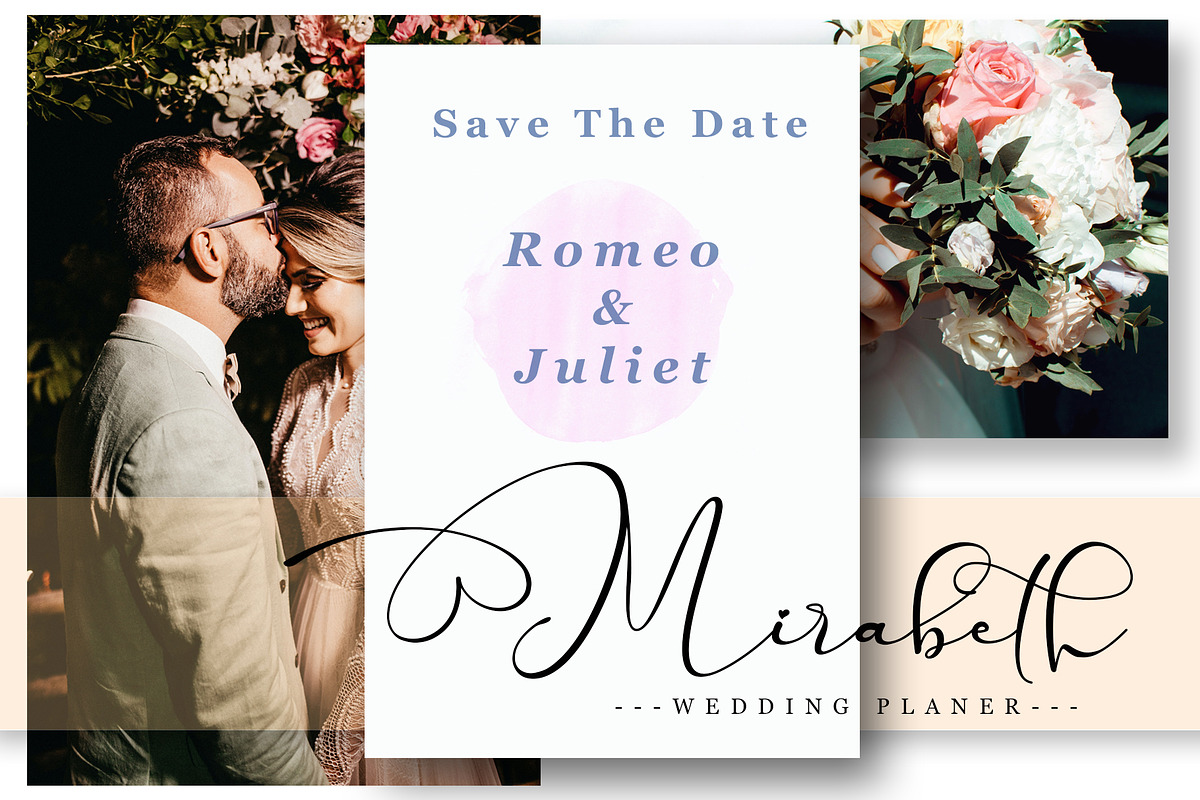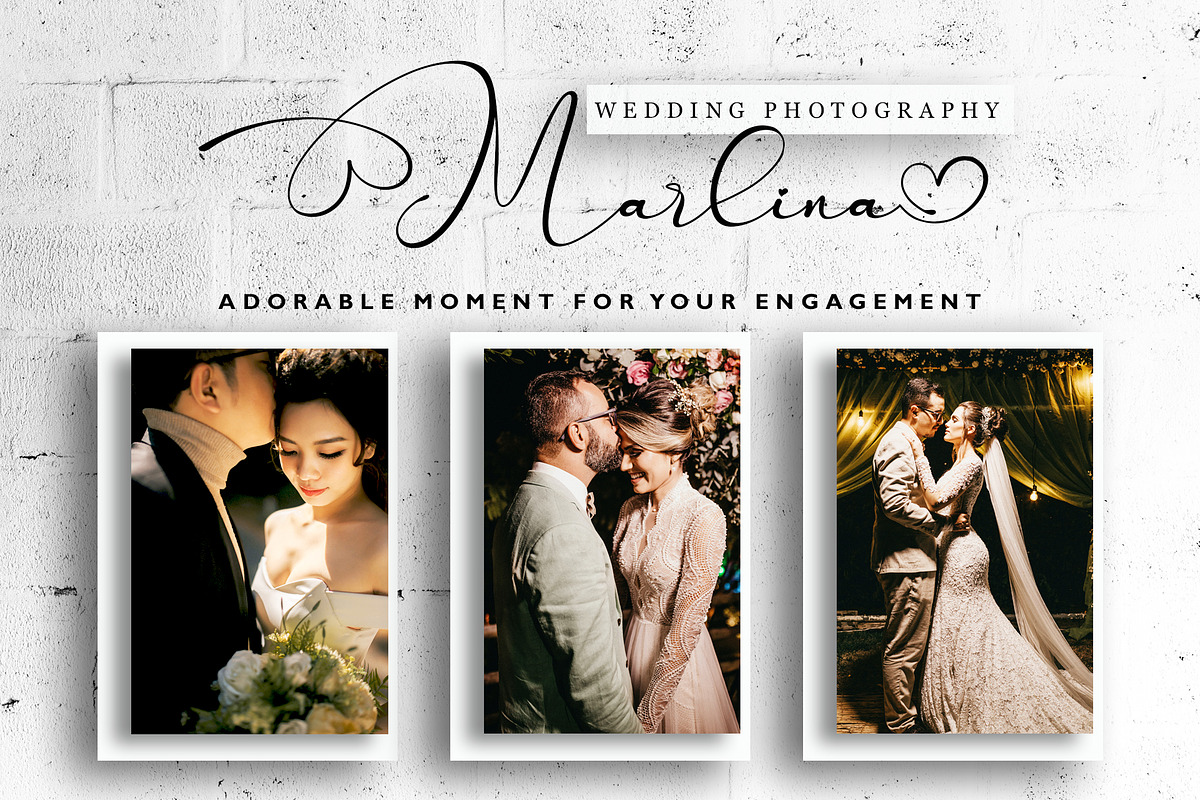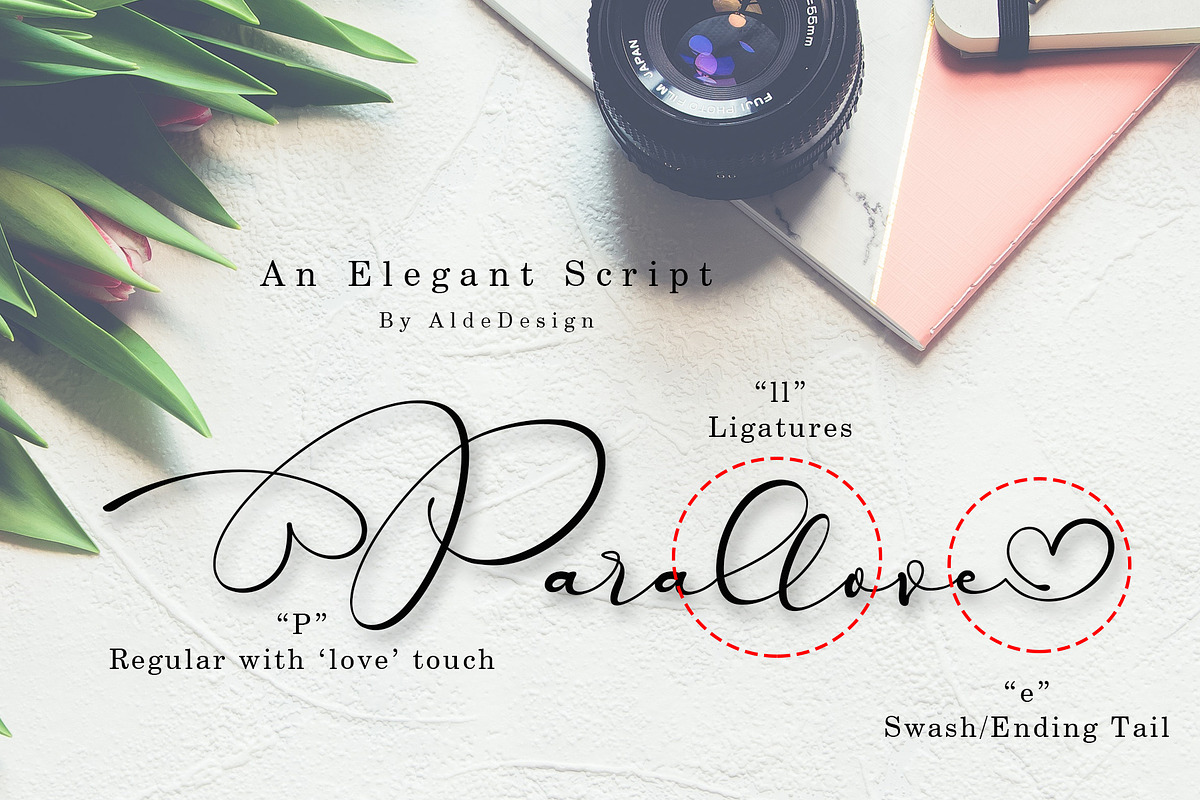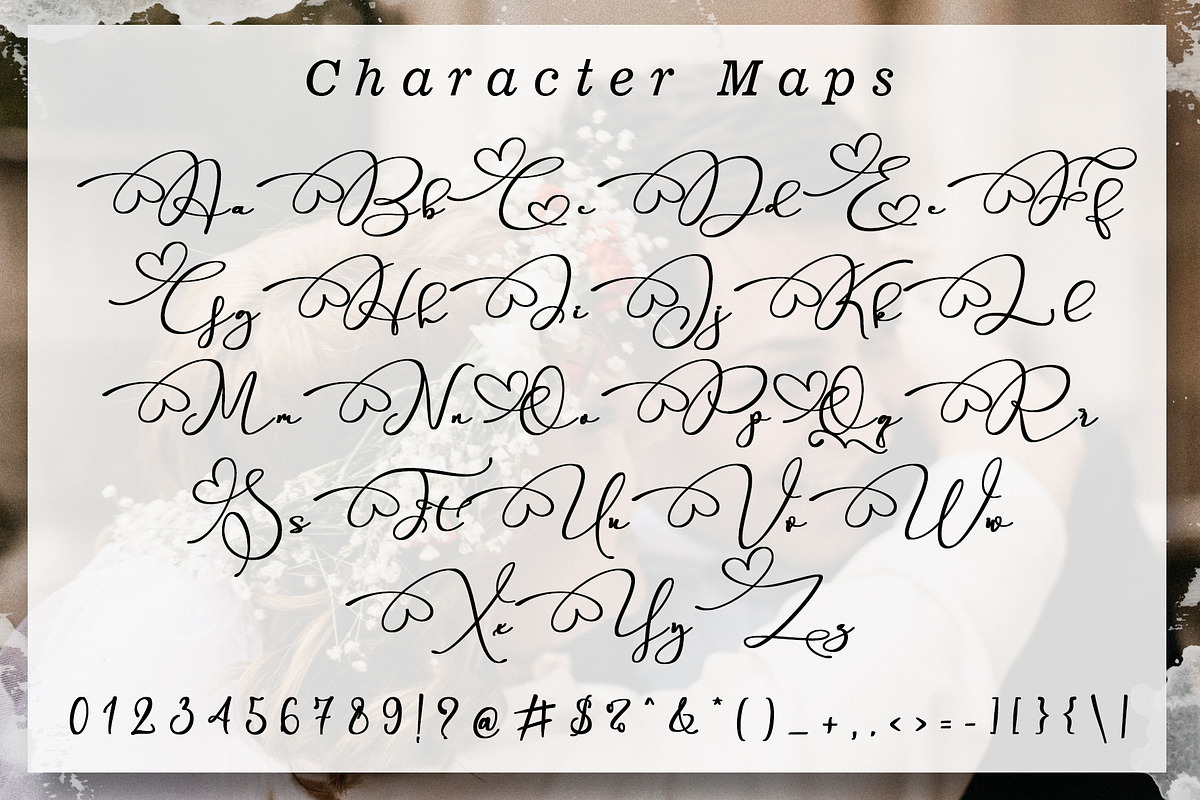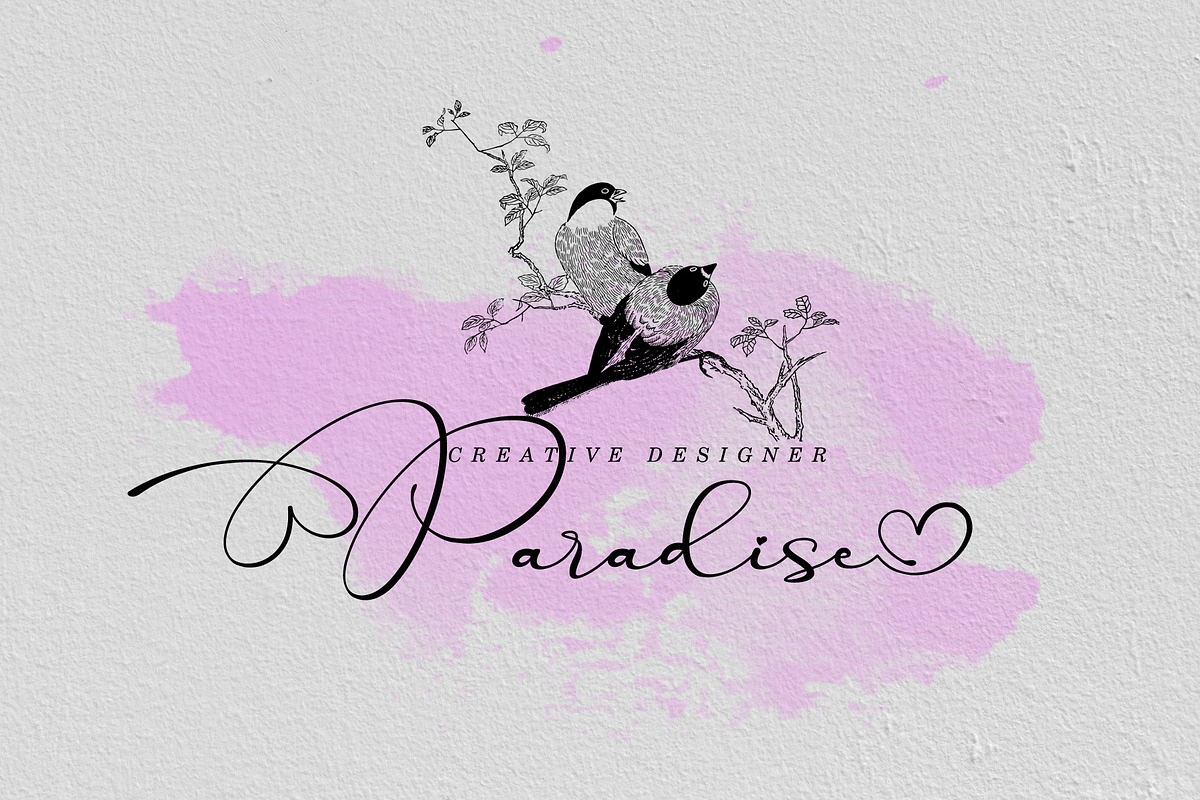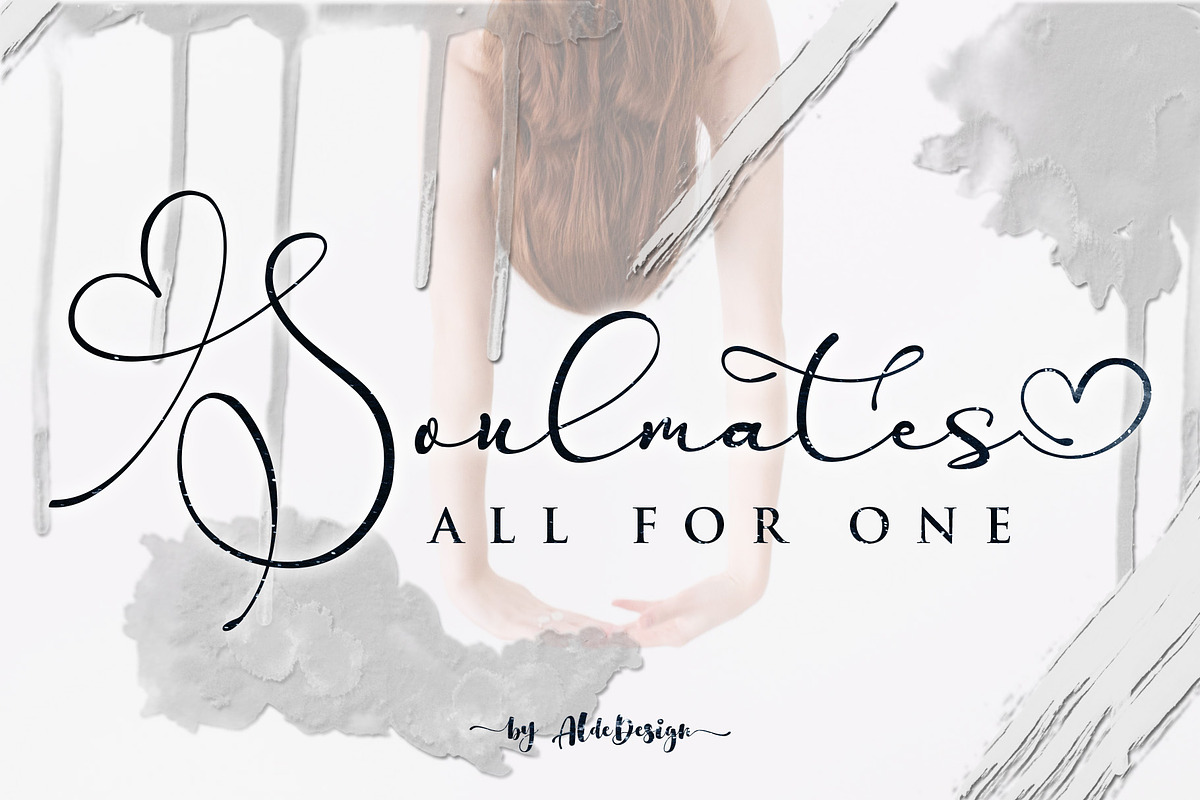
Parallove // Love Script Font
Parallove // Love Script Font is a stylish calligraphy font that features a varying baseline, smooth line, modern and with a depth love. For those of you who are need a touch of love and modernity for your designs or branding, it can be used for various purposes such as headings, wedding, invitation, signature, logos, branding, t-shirt, letterhead, signage, lable, news, posters, badges etc.
Parallove // Love Script Font by Aldedesign fits naturally into Branding, posters, packaging, typography.